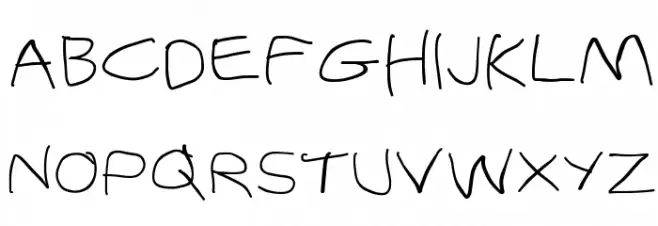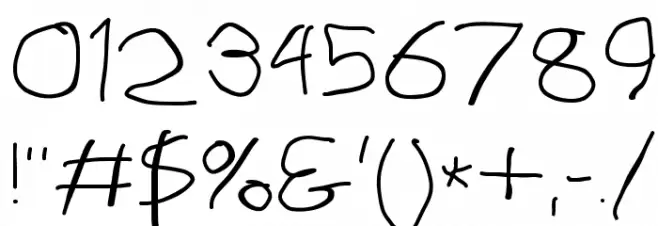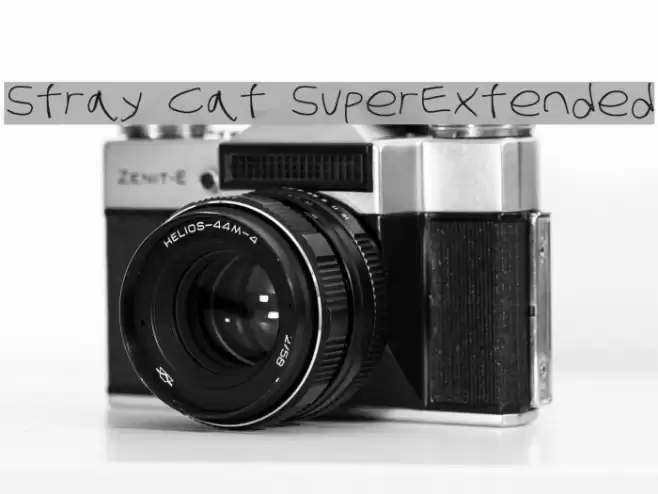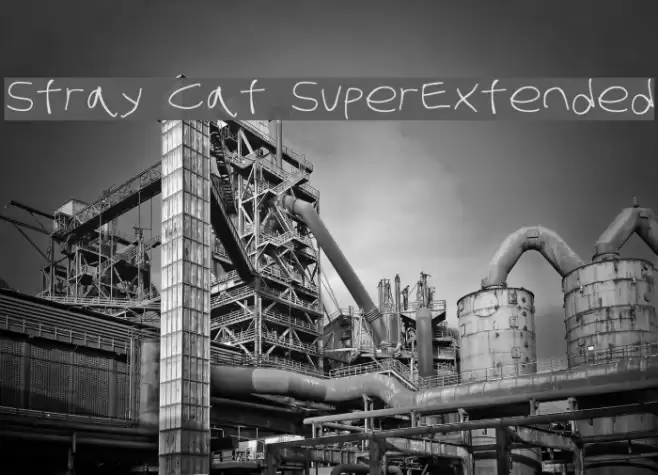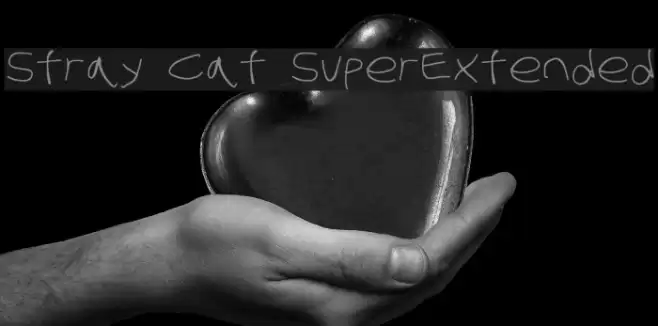
Stray Cat SuperExtended
This font features a playful and casual handwritten style, characterized by its loose and informal strokes. The letters are unevenly spaced, giving it a dynamic and spontaneous appearance. The uppercase and lowercase letters maintain a consistent flow, with rounded edges and a slightly tilted orientation that adds to its whimsical charm. The numerals and special characters follow the same playful design, making it suitable for creative and informal projects. Its unique style can add a personal touch to any design, evoking a sense of friendliness and approachability.
A playful, casual handwritten font with a dynamic and spontaneous style.
- Proposed Projects: Ideal for greeting cards, children's books, casual invitations, and playful branding.
- Width: Expanded
- Character Spacing: Wide
- Overall Style: Casual, Playful
- Use Case: Headlines, Informal text, Creative projects